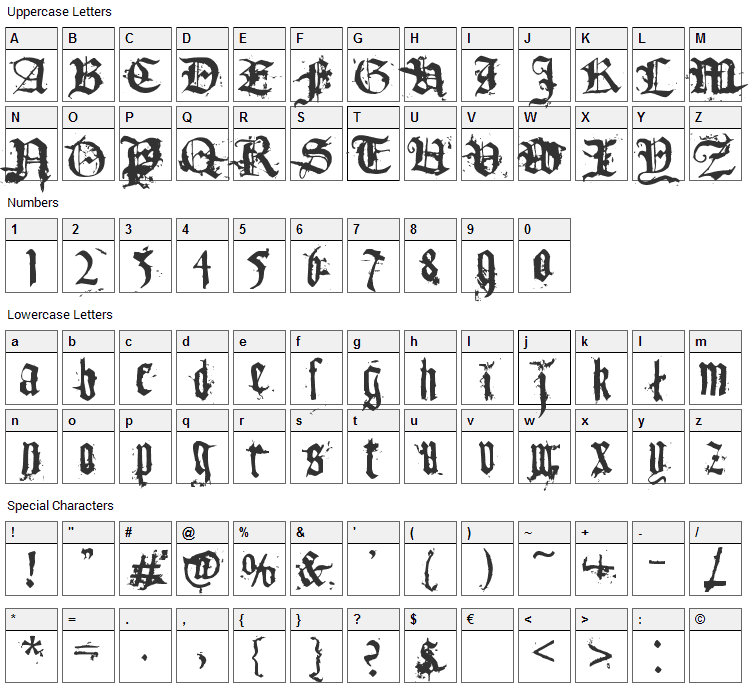
Tfu Tfu font contains 99 defined characters and 96 unique glyphs.
- Font Name:Tfu Tfu
- Version:Version 1.50
- Manufacturer:Meir Sadan
- Designer:Meir Sadan
My kitty can make fonts. One day I was hanging around with my lovely kitty-cat, browsing different types of fonts. My kitty surprisingly started to stare at each typeface, examining its typographical correctness and structure, the serifs and the stroke angle. Suddenly, she meowed. It wasn't the regular kind of meow - it was her special meow. The meow she uses to greet people she likes... At that moment, it just hit my mind - my kitty happens to like Goudy's typeface. Goudy is that font on the cover of The New York Times... The one that says "The New York Times". Yeah. Anyways... My kitty seemed to get all giddy and stuff, so I made a printout of it and let my kitty play with it. In a very extreme measure of carefulness, she started toodling around with the font - scrach here, scratch there - wrinkle here, wrinkle there. She started to get bored from this routine quite fastly, so I took the poor piece of paper and rolled it to the shape of the ball. You should've seen the look of graditude on her face when she found out she could now both play and make a font at the same time! To make a long story short, I eventually took the wad of material previously known as a piece of paper and scanned it into a font. And now you can have it. So there.